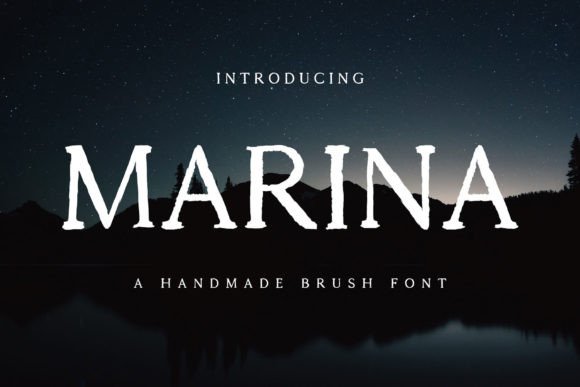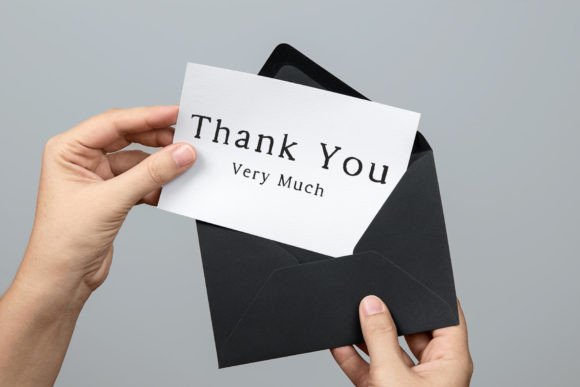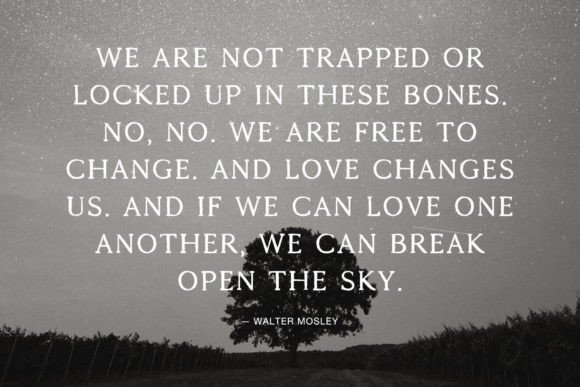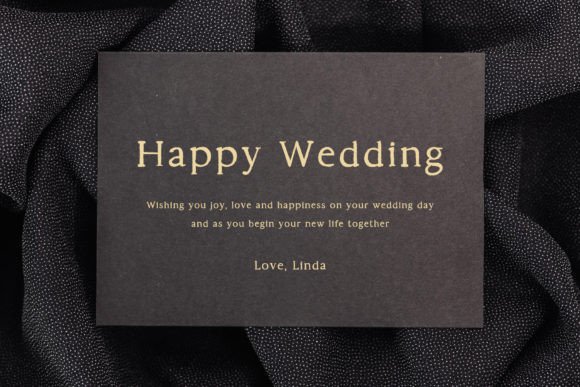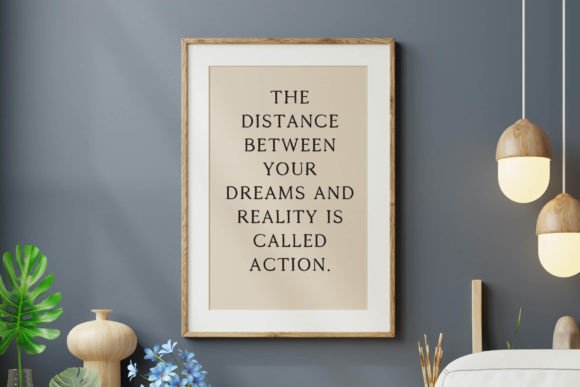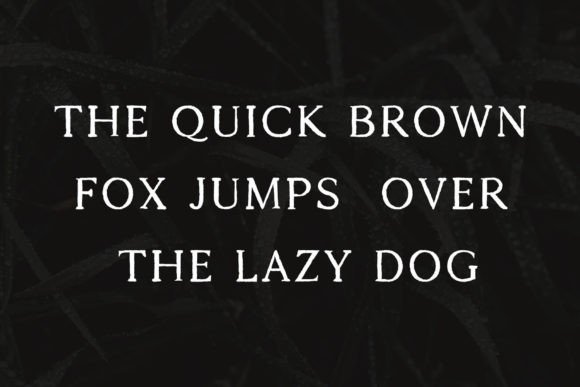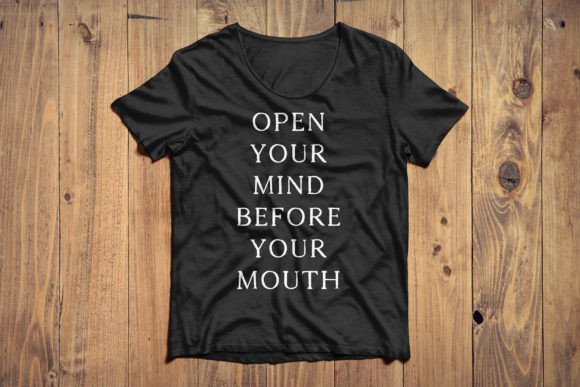
Marina Font
About Marina Font
Marina is a playful, charming, and relaxed handwritten font that will add a stunning look to any of your projects. Add this font to your designs and notice how it makes them come alive!